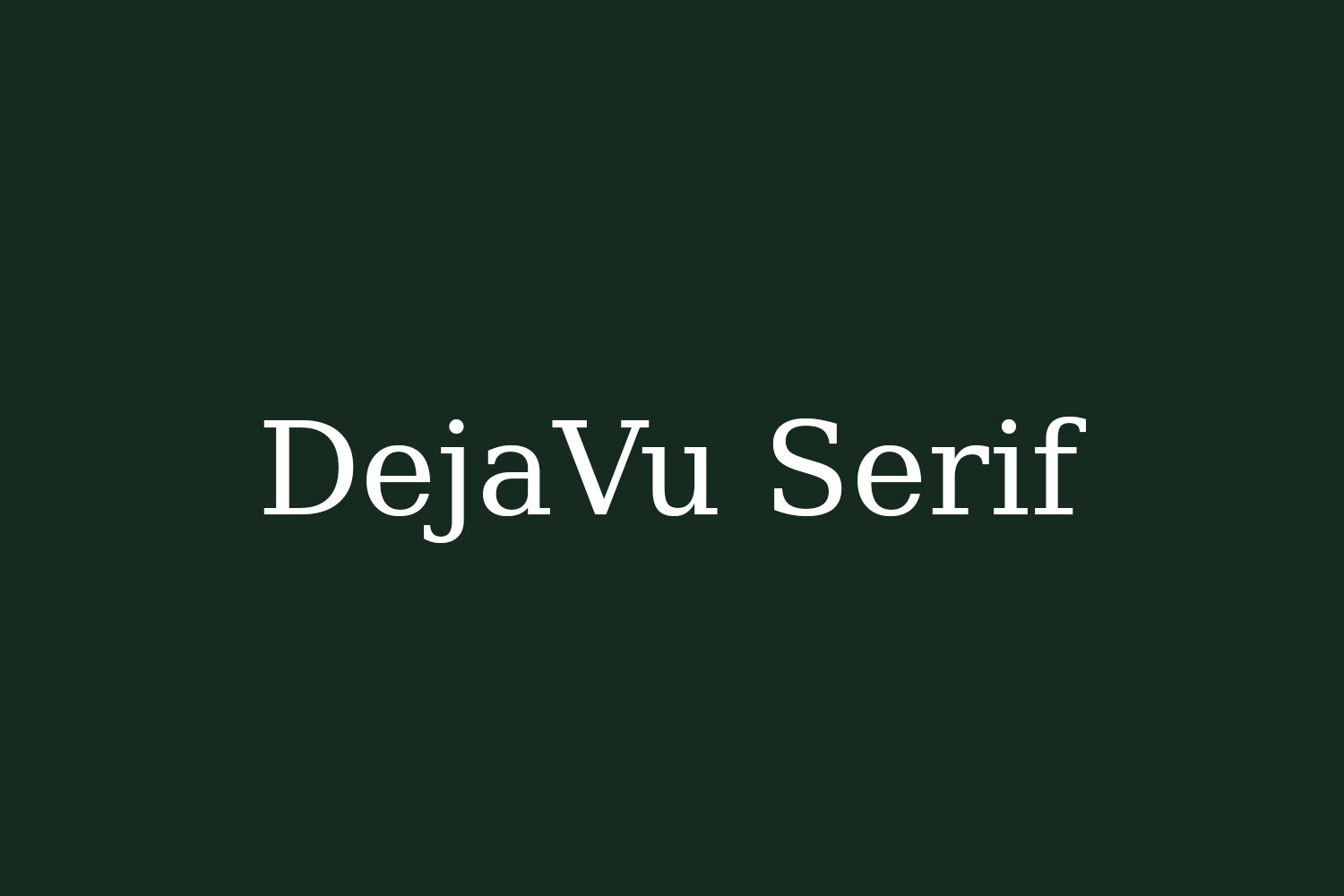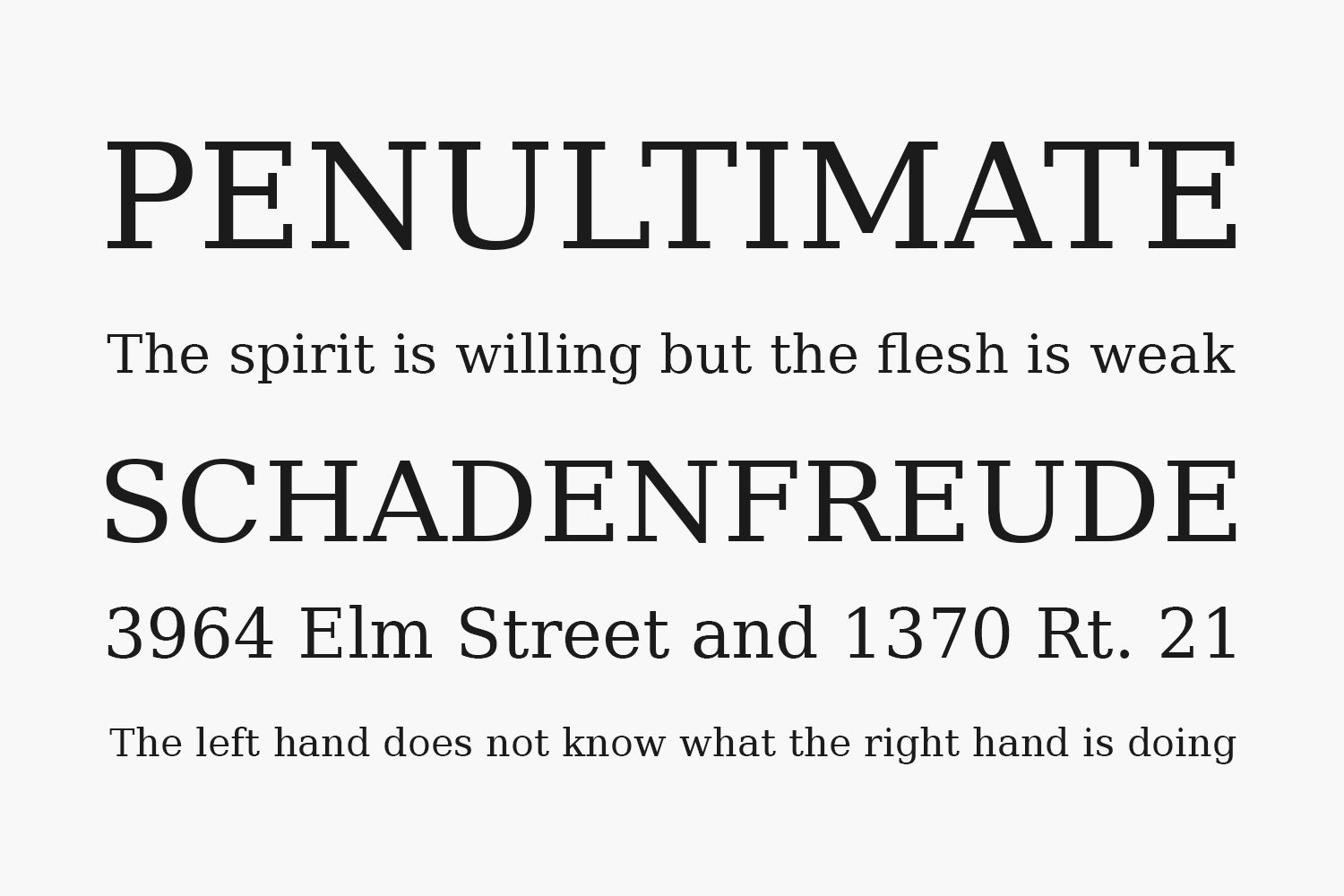
The DejaVu fonts are a free font family based on the Bitstream Vera Fonts. Its purpose is to provide a wider range of characters (see status.txt for more information) while maintaining the original look and feel. This font family is free for both personal and commercial purposes.